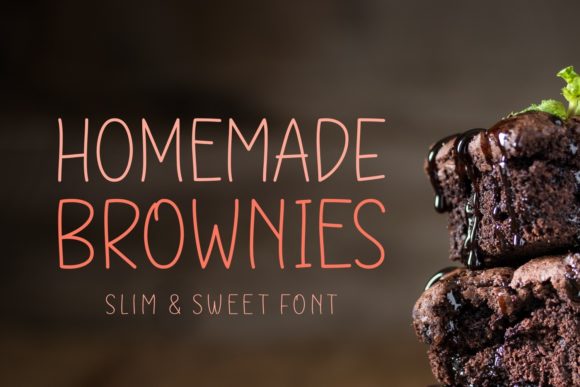
Introducing the Homemade Brownies Font: A Culinary Delight for Your Design Palette
Indulge your creative senses with the delectable Homemade Brownies Font, a script typeface that exudes warmth, comfort, and a touch of whimsy. Inspired by the comforting aroma and rich taste of freshly baked brownies, this font is crafted to bring a sense of nostalgia, familiarity, and pure joy to your design projects.
Picture this: the aroma of warm, gooey brownies fills the air as you gather around the kitchen table with loved ones, sharing laughter and stories. The Homemade Brownies Font captures this essence, inviting you to infuse your designs with a sense of togetherness, happiness, and the simple pleasures of life.
With its slim and simple drawn lines, the Homemade Brownies Font adds a personal touch to your designs, making them feel like heartfelt messages written by hand. Whether you're creating cards, craft projects, prints, or even logos, this font will add a touch of warmth and charm that resonates with your audience.